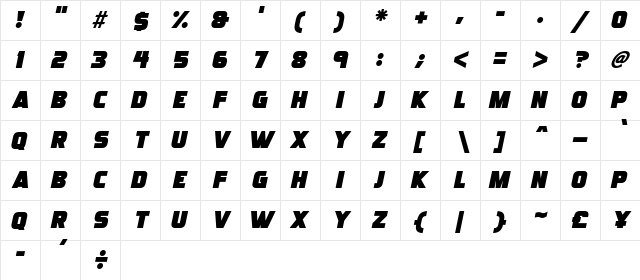
Ultraquick Italic
Design Context for Ultraquick Typeface
Ultraquick is a composed and adaptable typeface that performs quietly and consistently across a wide range of design contexts. The slanted form adds forward momentum and visual energy.
Pro Tip: Use Ultraquick for emphasis, pull quotes, and subheadings where its slanted energy can add rhythm to the layout.